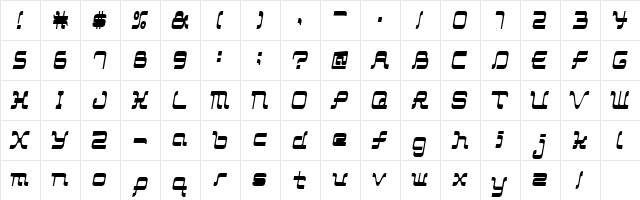
Maniac2AL Regular
Design Context for Maniac2AL Typeface
Maniac2AL is a composed and adaptable typeface that performs quietly and consistently across a wide range of design contexts.